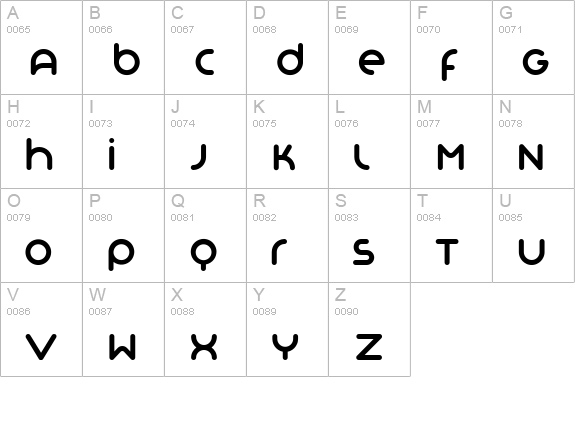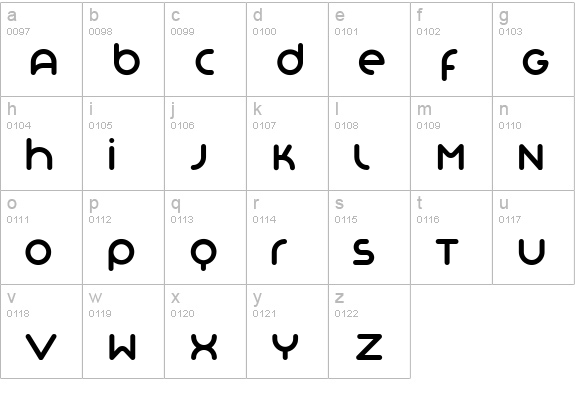
Organo Font Details
Organo font is a stunning and elegant typeface that is sure to captivate the eyes of any designer or typographer. With its unique and intricate letterforms, this font exudes a sense of sophistication and refinement. The graceful curves and precise lines of Organo create a harmonious balance, making it a versatile choice for a wide range of design projects. What sets Organo font apart is not only its exquisite design, but also the fact that it is available for free download at FontsMarket.com. This means that designers and enthusiasts alike have the opportunity to add this exceptional font to their collection without any cost. Whether you are working on a personal project or a professional assignment, having access to a high-quality font like Organo can elevate your work to new heights. The free availability of Organo font ensures that designers from all walks of life can experience its beauty and explore its potential. It eliminates any barriers that may hinder creativity, allowing you to freely experiment and express your artistic vision. Whether you are designing a logo, creating a brochure, or crafting a website, Organo font will bring a touch of elegance and sophistication to your work. FontsMarket.com is proud to offer Organo font as a free download, enabling designers to access this remarkable typeface with ease. The website provides a convenient platform for users to browse and discover a vast collection of fonts, ensuring that you can find the perfect typeface for any project. The user-friendly interface and efficient download process make FontsMarket.com the go-to destination for designers seeking high-quality fonts. In conclusion, Organo font is a breathtaking typeface that combines beauty, elegance, and versatility. Its availability as a free download at FontsMarket.com further enhances its appeal, making it easily accessible to designers and typographers worldwide. Whether you are a seasoned professional or a budding enthusiast, Organo font is a must-have addition to your font library. So, don't miss out on this opportunity to enhance your designs with the charm and allure of Organo font.